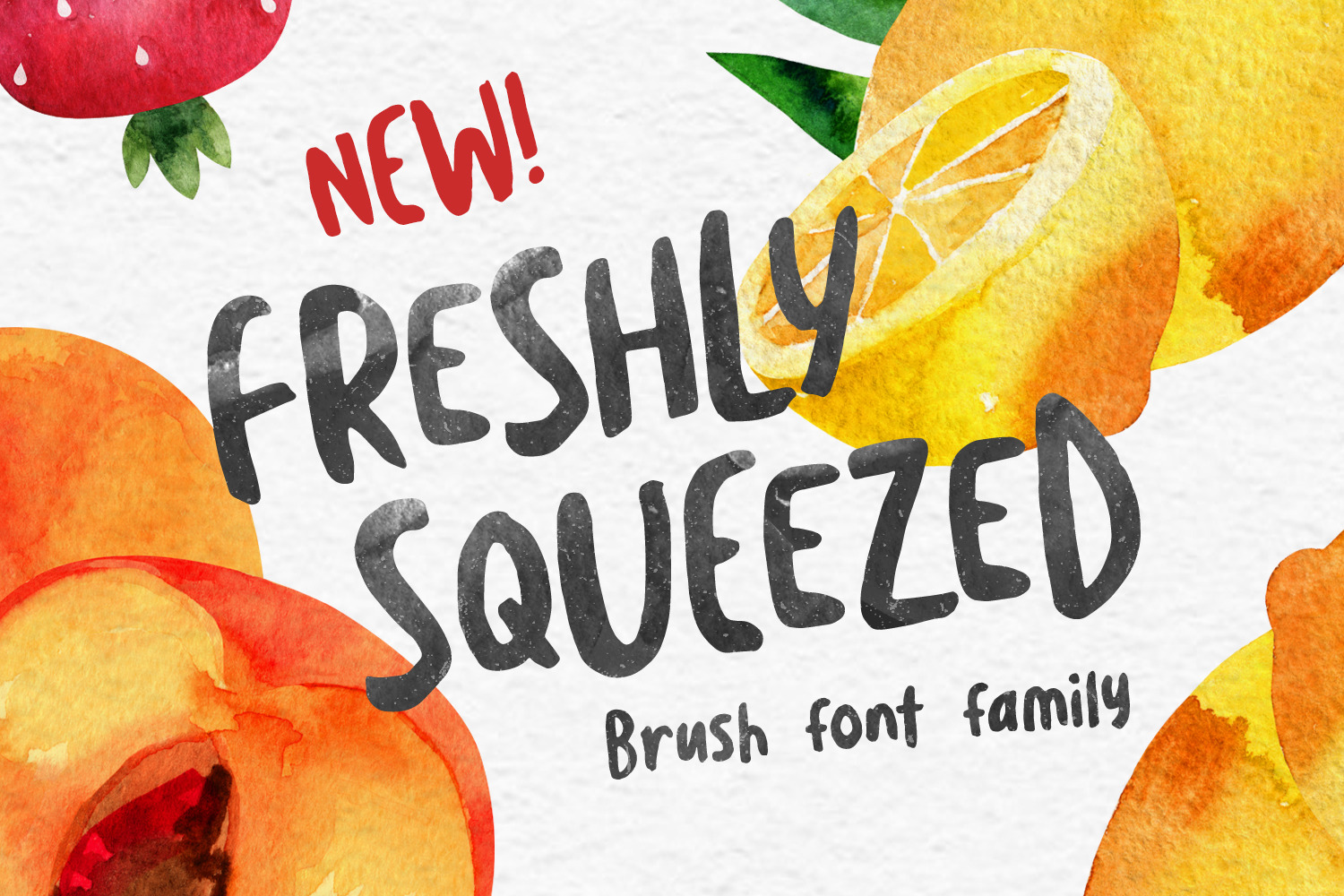
Freshly Squeezed - Typeface
Freshly Squeezed is a font that projects a ton of light hearted personality. Whether the characters are used for logos, greeting cards, book covers, banners or flyers, these bouncy letters are perfect for lightening the mood. Each character was handpainted and refined, until everything mixed together perfectly.
If you’re looking for variety in your text, look no further. Every letter a-z has an alternate character available. This gives you options to work with, and keeps your text looking natural. To add even more personality, we’ve added in an extras font full of fun swashes, icons, and other images that can help spice up your designs.